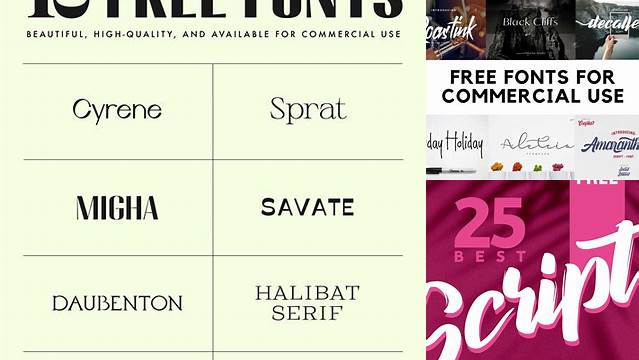
Best Free Commercial Display Fonts
What are Display Fonts?
Display fonts, also known as headline fonts, are designed to grab attention. Unlike body text fonts, which prioritize readability in large blocks of text, commercial free display fonts are all about making a statement. They often feature unique, stylized letterforms and are intended for use in headlines, titles, logos, posters, and other applications where visual impact is key. Think of them as the stars of your design, the elements that draw the eye and set the tone. The beauty of display fonts lies in their diversity; they can be bold and modern, elegant and script-like, or quirky and playful. They come in various styles, such as serif, sans-serif, script, and decorative, each offering a unique aesthetic. When choosing a display font, consider the overall message you want to convey and the mood you want to create. Are you going for a vintage vibe? A sleek, futuristic look? A playful, hand-drawn feel? The commercial free display fonts you select should align with your brand identity and the specific requirements of your project. Remember, display fonts are not meant for lengthy text passages. Using them for paragraphs of text can strain the reader's eyes and make your design look cluttered. Instead, use them sparingly to highlight key information and add visual interest. They are the perfect tool for creating eye-catching headings, impactful logos, and attention-grabbing graphics.
Why Use Free Fonts for Commercial Projects?
Where to Find Commercial Free Display Fonts
How to Choose the Right Display Font
Choosing the right commercial free display fonts can feel like picking the perfect outfit for a special occasion. You want something that looks good, fits the context, and makes a statement without overshadowing everything else. It's a delicate balance, but with a few key considerations, you can nail it every time. First, think about your brand identity. What kind of message do you want to convey? Are you aiming for a sophisticated, modern feel, or something more playful and whimsical? Your font choice should align with your brand's personality and values. For example, a sleek, sans-serif font might be a great fit for a tech company, while a script font could be perfect for a boutique bakery. Next, consider the project you're working on. A font that works well for a website header might not be the best choice for a printed poster. Think about the size at which the font will be used, the medium it will be displayed on, and the overall design aesthetic. For print projects, you'll want to choose a font that's legible and crisp, even at smaller sizes. For digital projects, you have more flexibility, but you still need to ensure the font looks good on different screens and devices. Another important factor is readability. While display fonts are meant to be eye-catching, they also need to be legible. Avoid fonts that are too ornate or stylized, as they can be difficult to read, especially in longer headlines or titles. Look for fonts that have clear, well-defined letterforms and a good balance between visual interest and legibility. It's also a good idea to think about font pairings. The fonts you choose for your headings and body text should complement each other, creating a cohesive and visually appealing design. A good rule of thumb is to pair a display font with a simpler, more readable font for body text. For example, you might pair a bold, sans-serif display font with a classic serif font for the body text. Finally, don't be afraid to experiment! Try out different commercial free display fonts and see what works best for your project. There are tons of fantastic fonts out there, so have fun exploring and finding the perfect fit.
1. Best Commercial Free Sans-Serif Display Fonts
Sans-serif fonts are known for their clean, modern look, making them a popular choice for display typography. When it comes to commercial free display fonts, the sans-serif category is brimming with excellent options. These fonts lack the small decorative strokes (serifs) found in traditional serif fonts, giving them a more streamlined and contemporary feel. This makes them ideal for headlines, logos, and other design elements where a strong, straightforward message is desired. One of the key strengths of sans-serif display fonts is their versatility. They can be used in a wide range of projects, from website design and branding to print materials and advertising campaigns. Their clean lines make them highly legible, even at smaller sizes, and their modern aesthetic makes them a perfect fit for tech companies, startups, and businesses that want to project a forward-thinking image. When choosing a commercial free display font sans-serif, consider the overall tone and style of your project. Do you want something bold and impactful, or something more subtle and refined? There are sans-serif fonts that range from geometric and minimalist to playful and quirky, so you can find the perfect fit for your needs. Some popular free sans-serif display fonts include Montserrat, Open Sans, and Roboto, all of which are available on Google Fonts. These fonts are highly versatile and can be used in a variety of contexts. For a bolder look, consider using a font like Bebas Neue or Oswald, which are known for their strong, impactful letterforms. If you're looking for something with a bit more personality, check out Raleway or Lato, both of which offer a balance of modern and friendly aesthetics. Remember, the best sans-serif display font is the one that best communicates your message and complements your overall design. Experiment with different fonts and see what works best for your specific project. The key is to choose a font that is both visually appealing and highly readable.
2. Top Free Serif Display Fonts for Commercial Use
Serif fonts, with their characteristic serifs (the small decorative strokes at the ends of letterforms), evoke a sense of tradition, elegance, and authority. These fonts are a staple in the world of typography, and they can add a touch of sophistication and class to your designs. When it comes to commercial free display fonts, the serif category offers a wealth of beautiful and versatile options. Serif display fonts are particularly well-suited for projects that aim to convey a sense of history, luxury, or trustworthiness. They are often used in branding for high-end products, in publishing for book titles and chapter headings, and in website design for headers and call-to-action buttons. The serifs themselves can vary in style, from the classic and refined serifs of fonts like Times New Roman to the more modern and angular serifs of fonts like Playfair Display. This variation allows you to choose a serif font that perfectly matches the tone and style of your project. When selecting a commercial free display font serif, consider the weight and contrast of the font. A font with a heavier weight and high contrast (the difference between the thick and thin strokes) will make a bolder statement, while a lighter weight and lower contrast will create a more subtle and refined look. Some popular free serif display fonts for commercial use include Playfair Display, Merriweather, and Lora, all of which are available on Google Fonts. These fonts are highly versatile and can be used in a variety of contexts. Playfair Display is a particularly elegant option, with its high contrast and delicate serifs. Merriweather is a more classic choice, with a warm and inviting feel. Lora is a well-balanced font that works well for both print and digital projects. Remember, the best serif display font is the one that best captures the essence of your brand and your message. Experiment with different fonts and see what works best for your specific project.
3. Free Script and Handwritten Fonts for Commercial Projects
Script and handwritten fonts bring a personal, artistic touch to any design project. These fonts mimic the fluid strokes of handwriting, adding a sense of warmth, authenticity, and creativity. When you're looking for commercial free display fonts, the script and handwritten category is a treasure trove of unique and expressive options. These fonts are perfect for projects that need a touch of personality, such as invitations, logos, branding for creative businesses, and social media graphics. They can also be used to create a more informal and approachable feel in your designs. Script fonts range from elegant and formal scripts, reminiscent of calligraphy, to playful and casual handwritten styles. The best choice depends on the message you want to convey and the overall tone of your project. A formal script font might be ideal for wedding invitations or a luxury brand, while a casual handwritten font might be perfect for a blog or a children's book. One thing to keep in mind when using script and handwritten commercial free display fonts is readability. These fonts can sometimes be more challenging to read than serif or sans-serif fonts, especially at smaller sizes. It's important to choose a font that is legible and to use it sparingly, typically for headlines or short phrases. Pair your script or handwritten display font with a clean and simple sans-serif or serif font for the body text to ensure readability. Some popular free script and handwritten fonts for commercial use include Great Vibes, Pacifico, and Permanent Marker, all of which are available on Google Fonts. Great Vibes is an elegant and flowing script font, perfect for formal occasions. Pacifico is a more casual and playful script font, ideal for branding and social media graphics. Permanent Marker is a bold and expressive handwritten font, great for making a statement. When choosing a script or handwritten font, consider the overall style and personality of your project. Does the font reflect the message you want to convey? Is it legible and easy to read? Experiment with different fonts and see what works best for your needs.
4. Bold and Impactful Display Fonts (Free for Commercial Use)
5. Minimalist and Modern Free Display Fonts
6. Vintage and Retro Display Fonts (Commercial Free)
7. Free Decorative and Unique Display Fonts
8. Best Fonts for Logos (Free Commercial)
9. Free Fonts for Website Headers
10. Top Fonts for Posters and Flyers (Free Commercial)
11. Free Fonts for Branding and Marketing
12. How to Pair Display Fonts with Body Fonts (Free)
13. Understanding Font Licenses for Commercial Use
14. Tips for Using Display Fonts Effectively
15. Avoiding Common Mistakes with Display Fonts
16. Google Fonts for Commercial Use: A Deep Dive
17. Font Squirrel: A Great Resource for Free Fonts
18. Other Websites for Free Commercial Fonts
19. Creating Your Own Display Font (Free Tools)
20. The Psychology of Fonts: Choosing the Right Mood
21. Trends in Display Font Design
22. Best Free Fonts for Social Media Graphics
23. Free Fonts for Print vs. Digital Projects
24. Optimizing Fonts for Web Use (Free)
25. Free Fonts for Ebooks and Publications
26. The Future of Display Typography
27. Free Font Management Tools
28. How to Test Your Font Choices (Free Methods)
29. Free Alternatives to Popular Paid Fonts
30. Inspiration for Using Display Fonts in Design
We've covered a lot about commercial free display fonts, from what they are and where to find them, to how to choose the right one and use them effectively. Remember, finding the perfect font can be a game-changer for your design projects, so take your time, explore your options, and have fun experimenting! And don't forget, these subheadings are just a starting point. Each one could be expanded into a full article on its own, offering even more detailed information and insights. Happy designing!